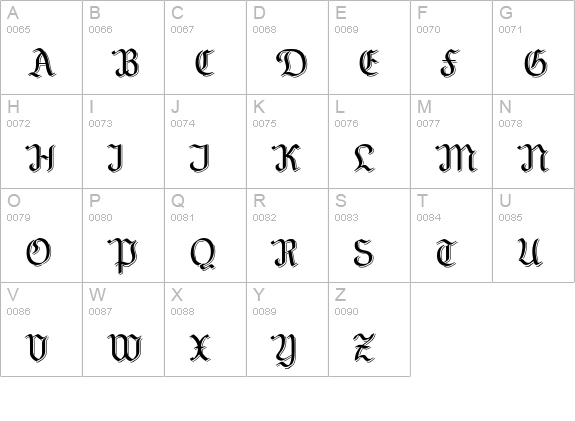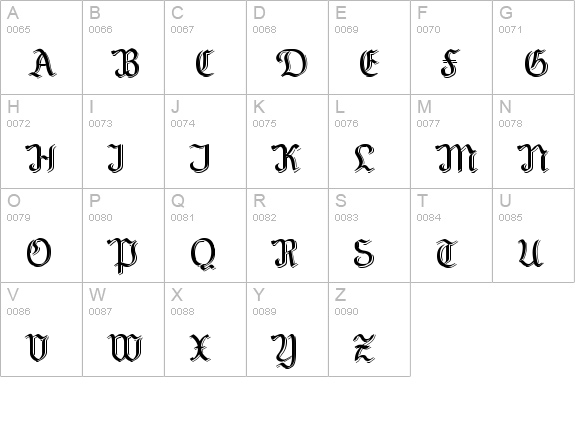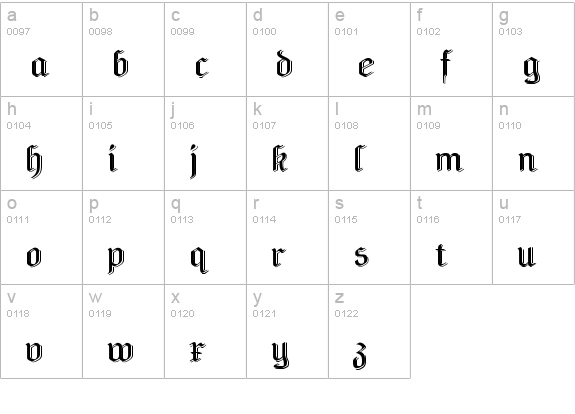
Teutonia Font Details
Teutonia font is a beautifully crafted typeface that exudes elegance and sophistication. Its clean lines and classic letterforms make it perfect for a wide range of design projects, from branding and logos to editorial pieces and signage. With its timeless appeal, Teutonia font offers a harmonious balance between modernity and tradition. Its versatile nature allows it to seamlessly adapt to any creative vision, effortlessly conveying a sense of professionalism and refinement. This free font is a true gem for designers and typographers alike. Its availability for free download at FontsMarket.com makes it easily accessible to anyone looking to enhance their projects with an exquisite and distinctive typeface. Whether you're working on a corporate identity, a magazine layout, or a website design, Teutonia font's versatility and legibility will ensure that your message is conveyed with utmost clarity and style. Its generous letter spacing and carefully designed letterforms guarantee that every word is a visual delight to behold. Unleash your creativity and elevate your designs with the timeless elegance of Teutonia font. Download it for free at FontsMarket.com and discover the endless possibilities that this exceptional typeface has to offer.